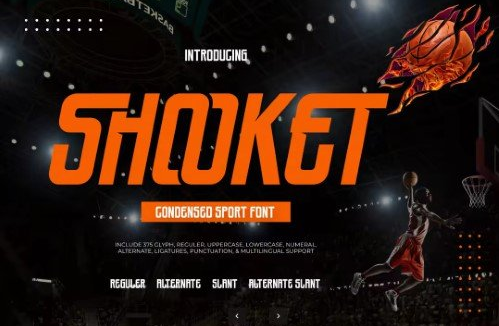
DOMINATE THE FIELD WITH UNSHAKEABLE IMPACT AND SPEED-INSPIRED DESIGN. Shooket is a powerhouse condensed sport font built for victory. With its aggressive proportions, dynamic angles, and athletic energy, this typeface is engineered to make your designs look faster, stronger, and more competitive. Perfect for sports branding, gaming identities, and high-impact headlines, Shooket delivers intensity and professionalism in every glyph.